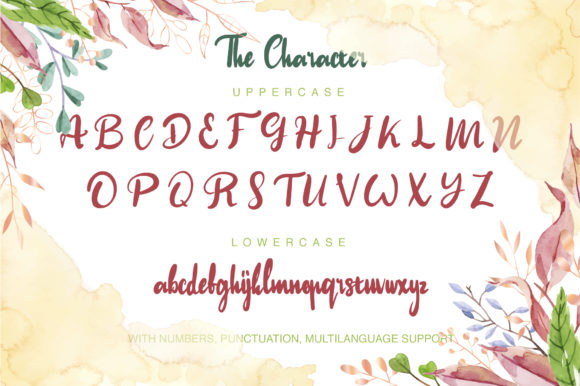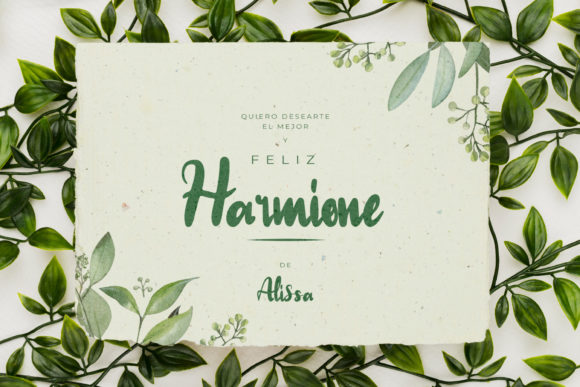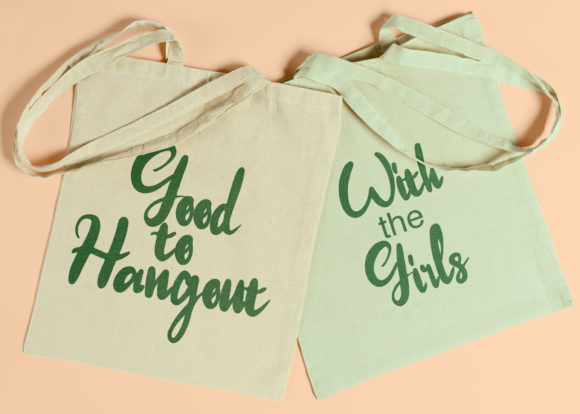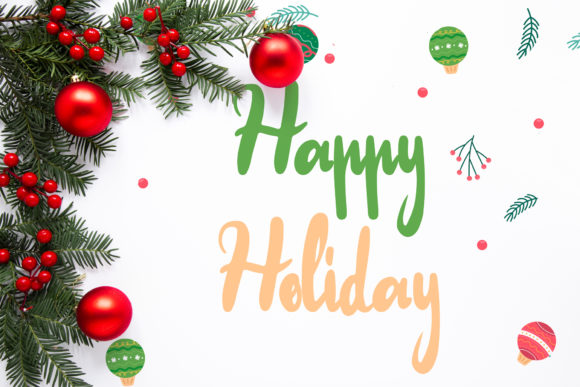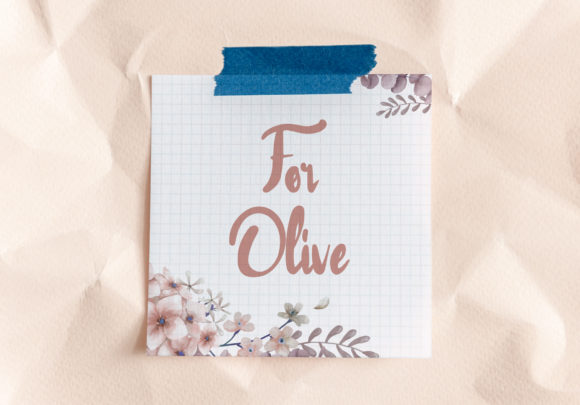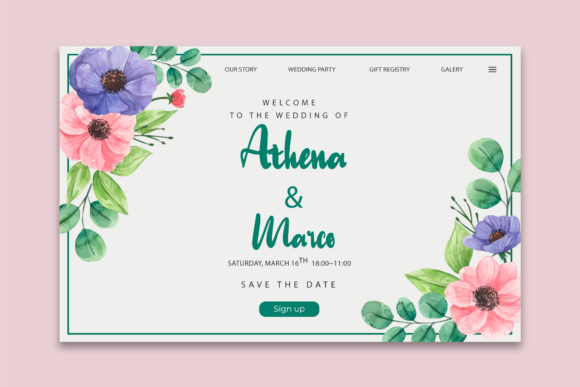
Introduction to Love Whisper Font Font
Fonts play a crucial role in design, and the Love Whisper Font font is a typeface that brings both character and versatility to any project. Whether you’re working on a branding project, a website, or a print design, the Love Whisper Font font offers a unique style that can elevate your work.
Love Whisper is a romantic handwritten font.
Elegant and sweet, it can be used for various purposes, such as logos, wedding invitations, t-shirt, letterheads, news, posters, badges and so much more .
Key Features of Love Whisper Font Font
Why Choose Love Whisper Font Font?
The Love Whisper Font font is more than just a typeface – it’s a design tool that helps you communicate your message with style and clarity. Its unique character set and versatile design make it suitable for a wide range of applications, from elegant invitations to bold headlines.
With its carefully crafted letterforms and balanced proportions, the Love Whisper Font font ensures readability and visual appeal across all mediums.
What makes Love Whisper Font font special?
The Love Whisper Font font stands out with its unique design, exceptional readability, and versatility across various design applications.